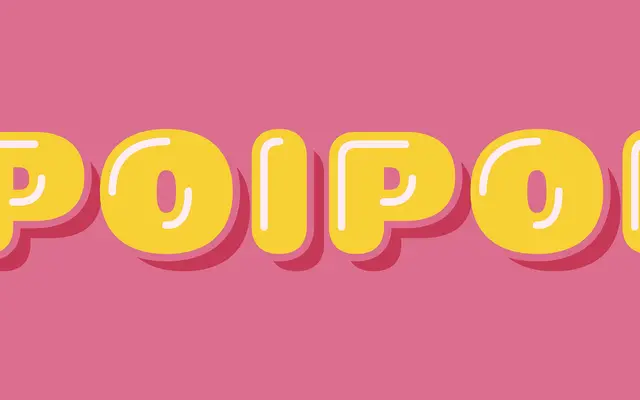
Poipoi specimen from Dharma Type
A layered 3D display sans with rounded terminals, built on the wood type tradition of stacking separate printing plates to create depth through colour.
Each of the three styles, Standard, Highlight and Shadow, functions as a discrete layer that can be stacked in design software to produce a full three-dimensional effect. The rounded terminals give the letterforms a casual warmth that sits comfortably in playful branding and poster work. All three layers can also be used independently, and the family covers an extensive range of Latin character sets.
A bold display sans with rounded terminals designed as a layered system for 3D effects, clearly falling into the display category with its poster-oriented, high-impact construction rooted in wood type tradition.